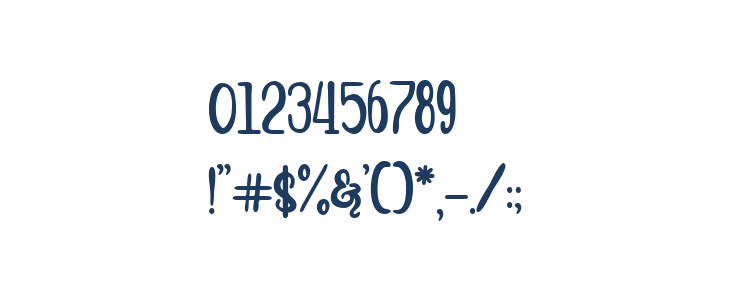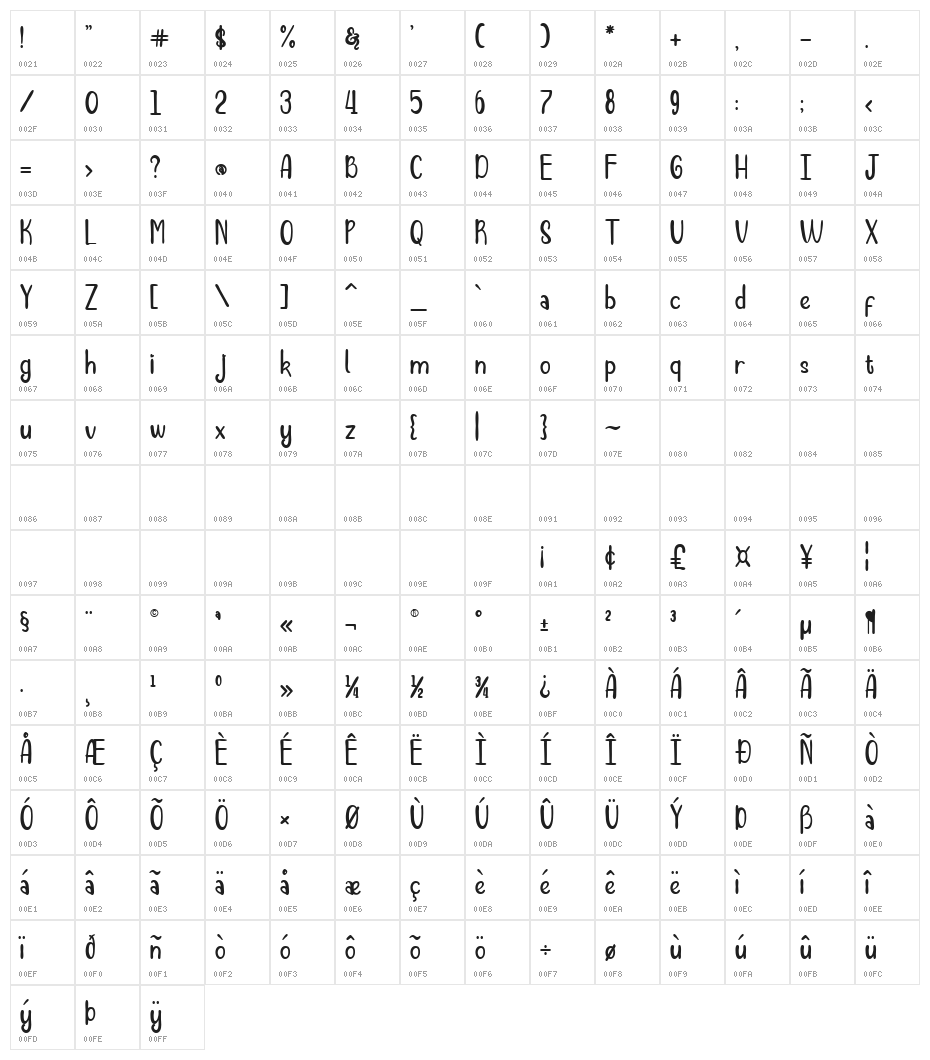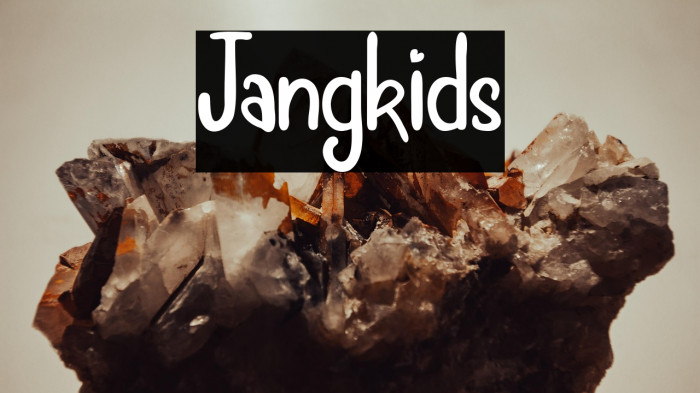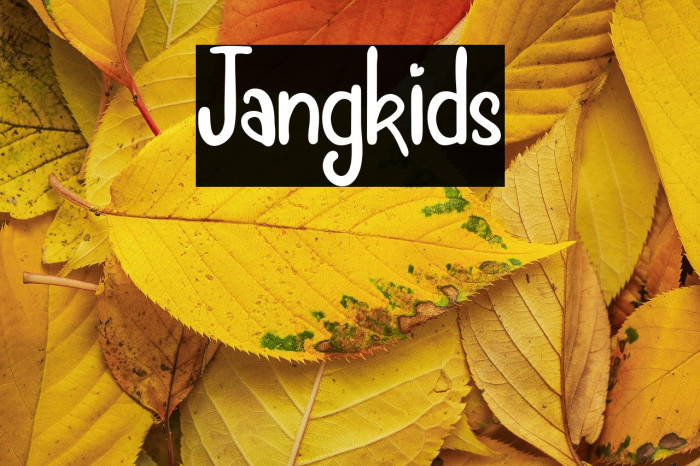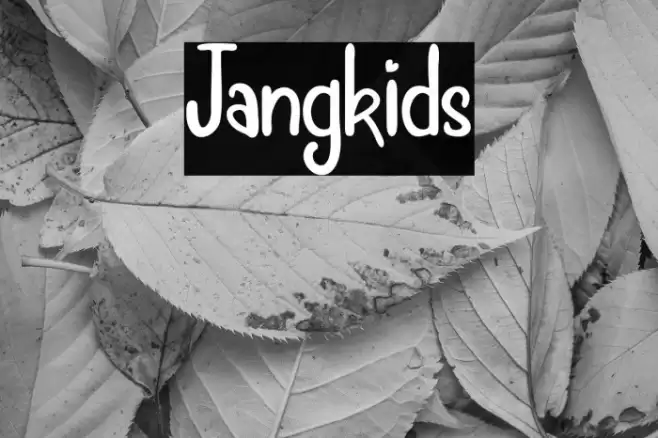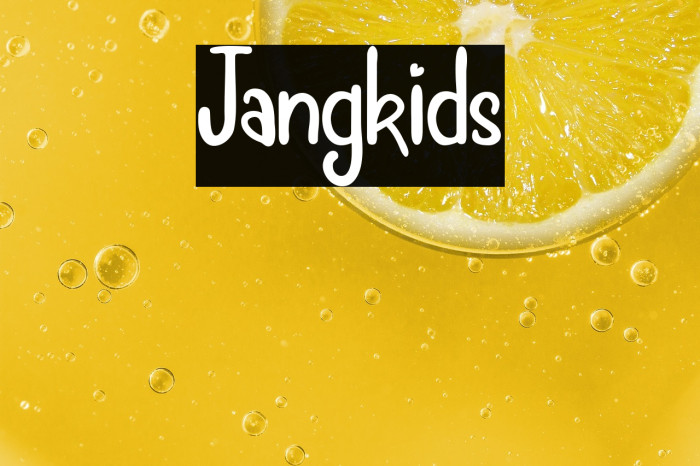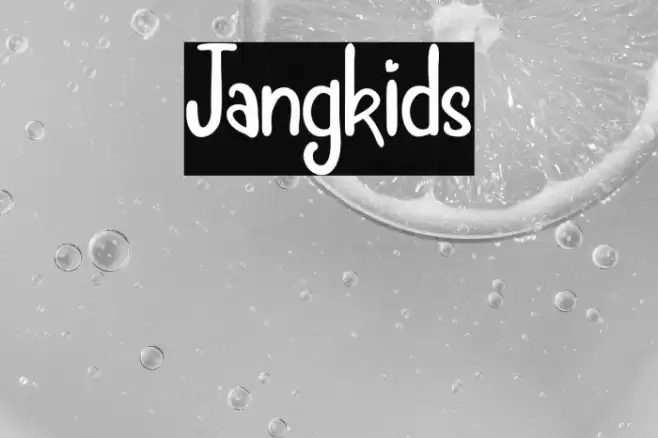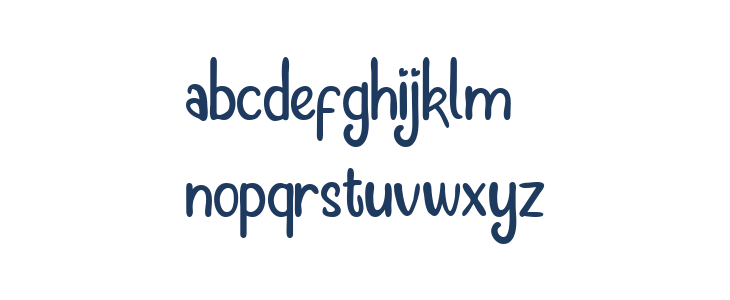
Jangkids Font
Jangkids Description
This playful and whimsical font features rounded, friendly characters that convey a sense of fun and creativity. The letters have a hand-drawn appearance, with smooth curves and a slightly irregular baseline that adds to its charm. The uppercase letters are bold and prominent, while the lowercase letters maintain a consistent style with a slightly more compact form. Numbers and special characters are designed to match the playful aesthetic, making this font suitable for a variety of creative projects. The overall look is approachable and lively, perfect for engaging audiences in a lighthearted manner.
| Proposed Projects | Ideal for children's books, playful branding, greeting cards, and educational materials. |